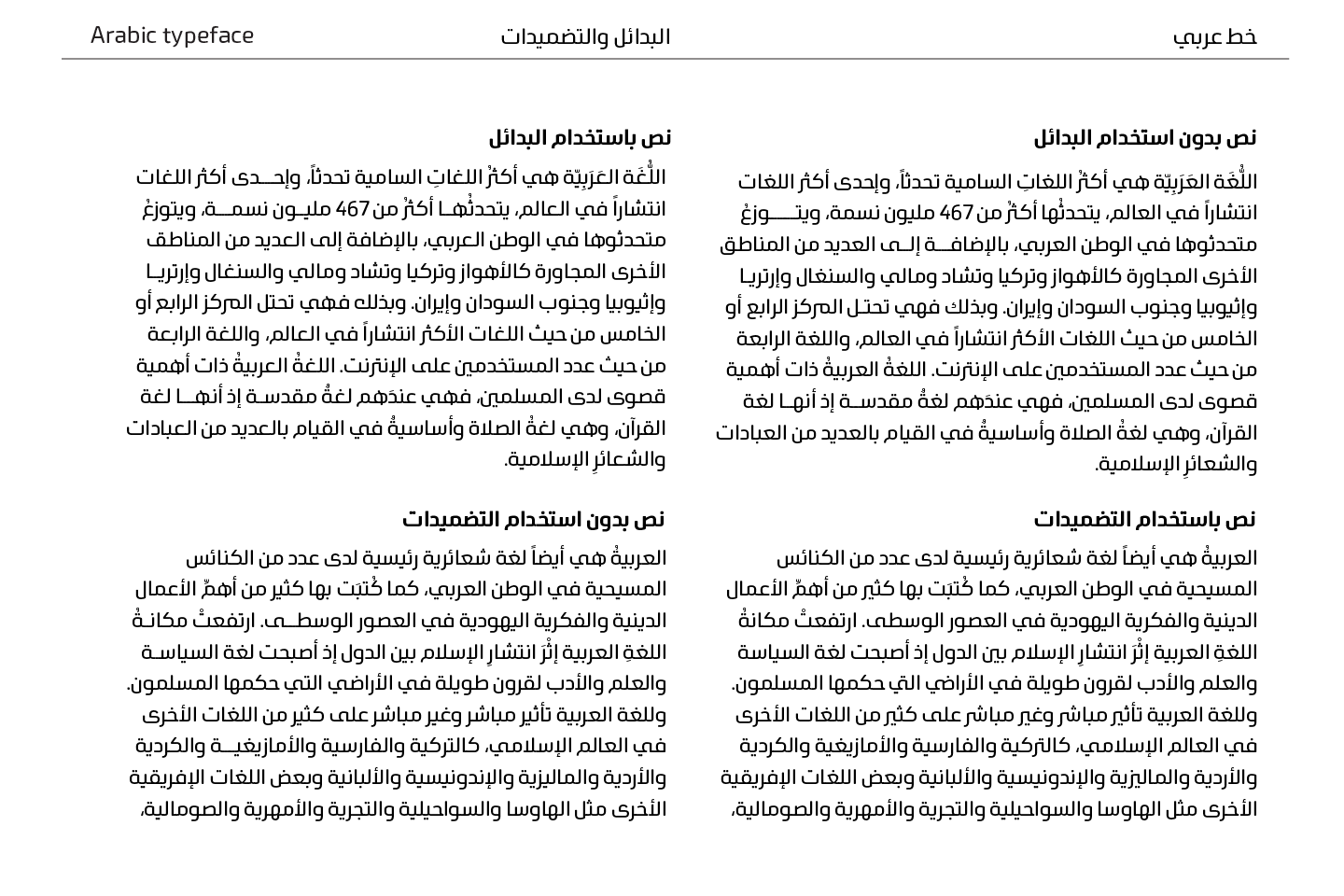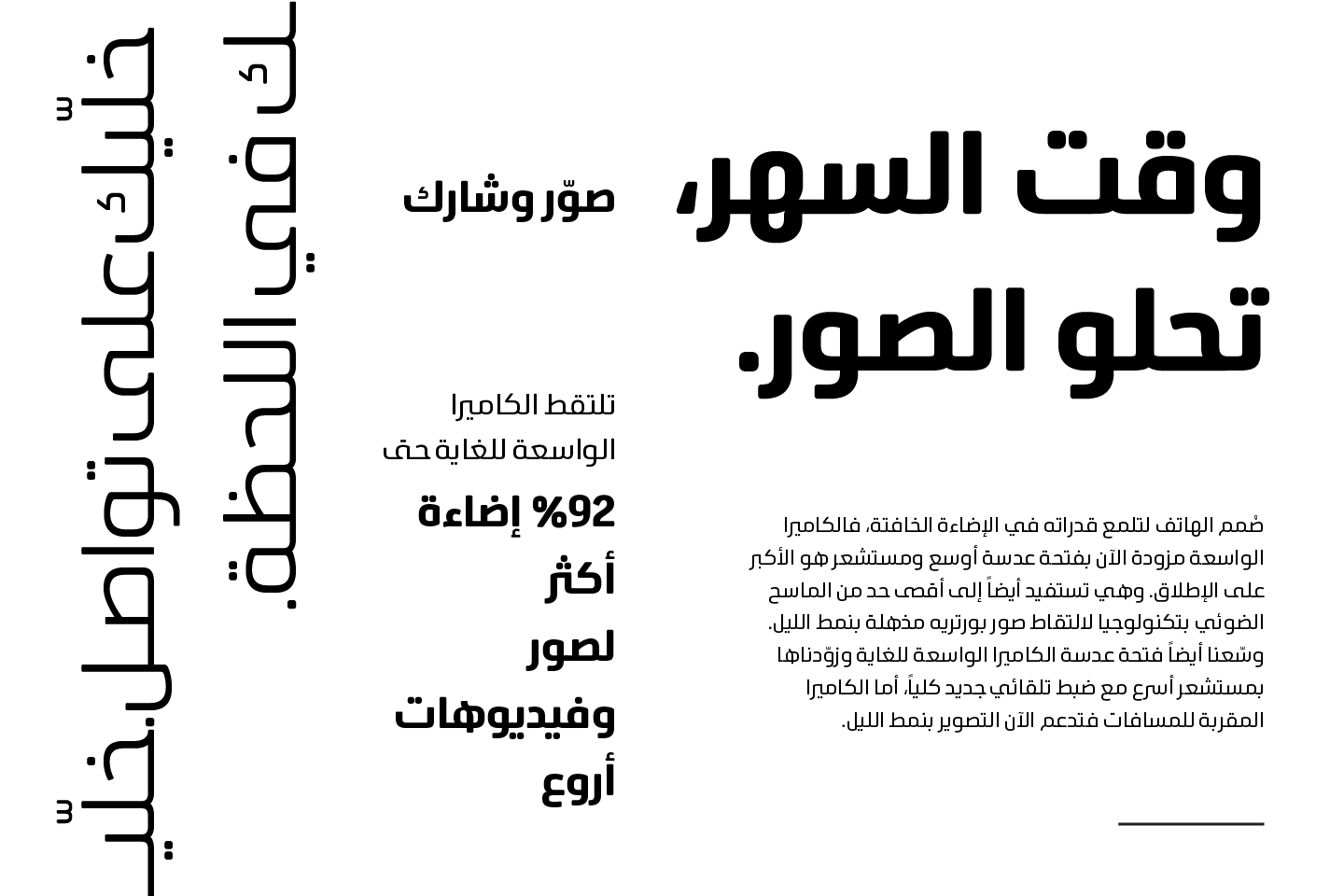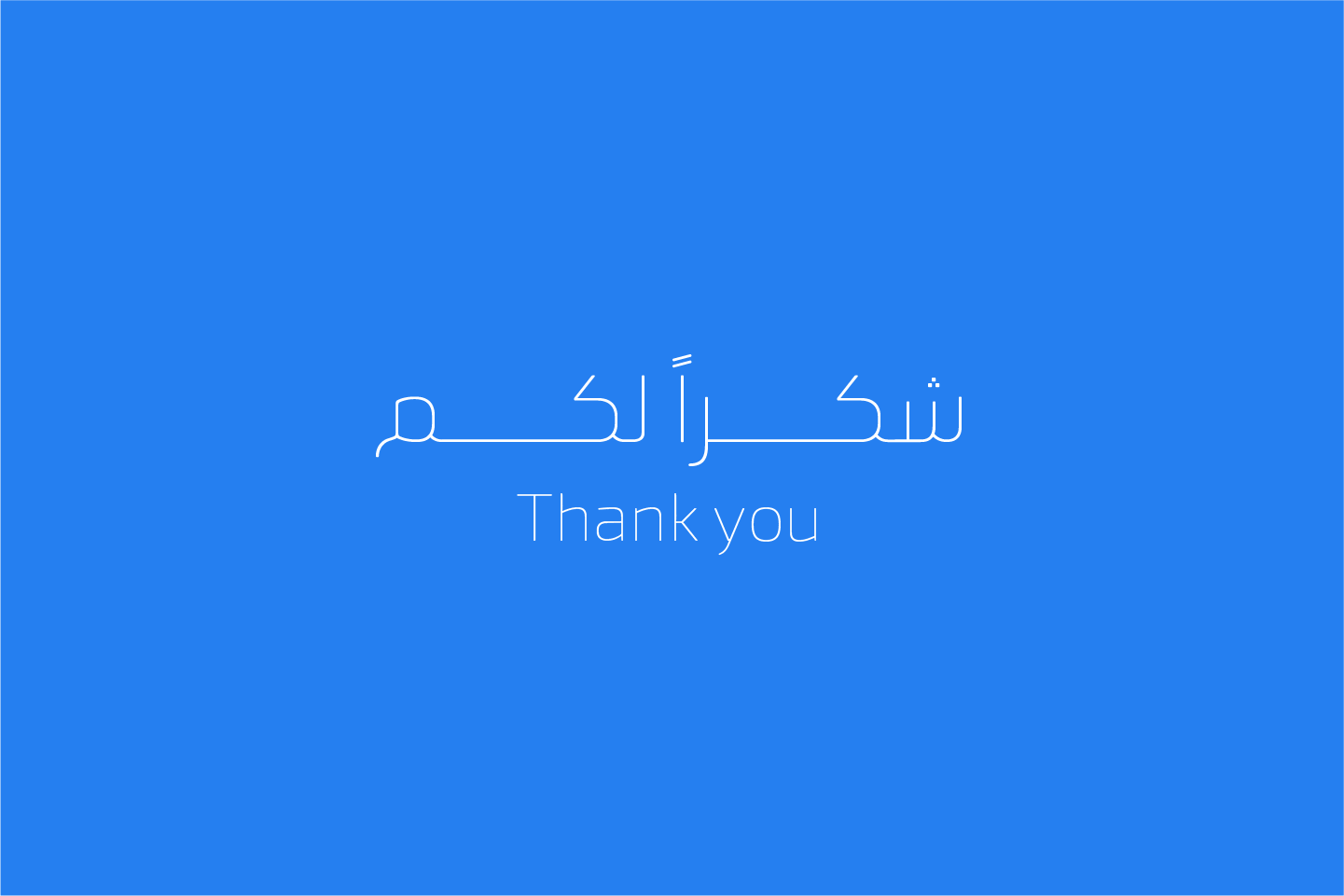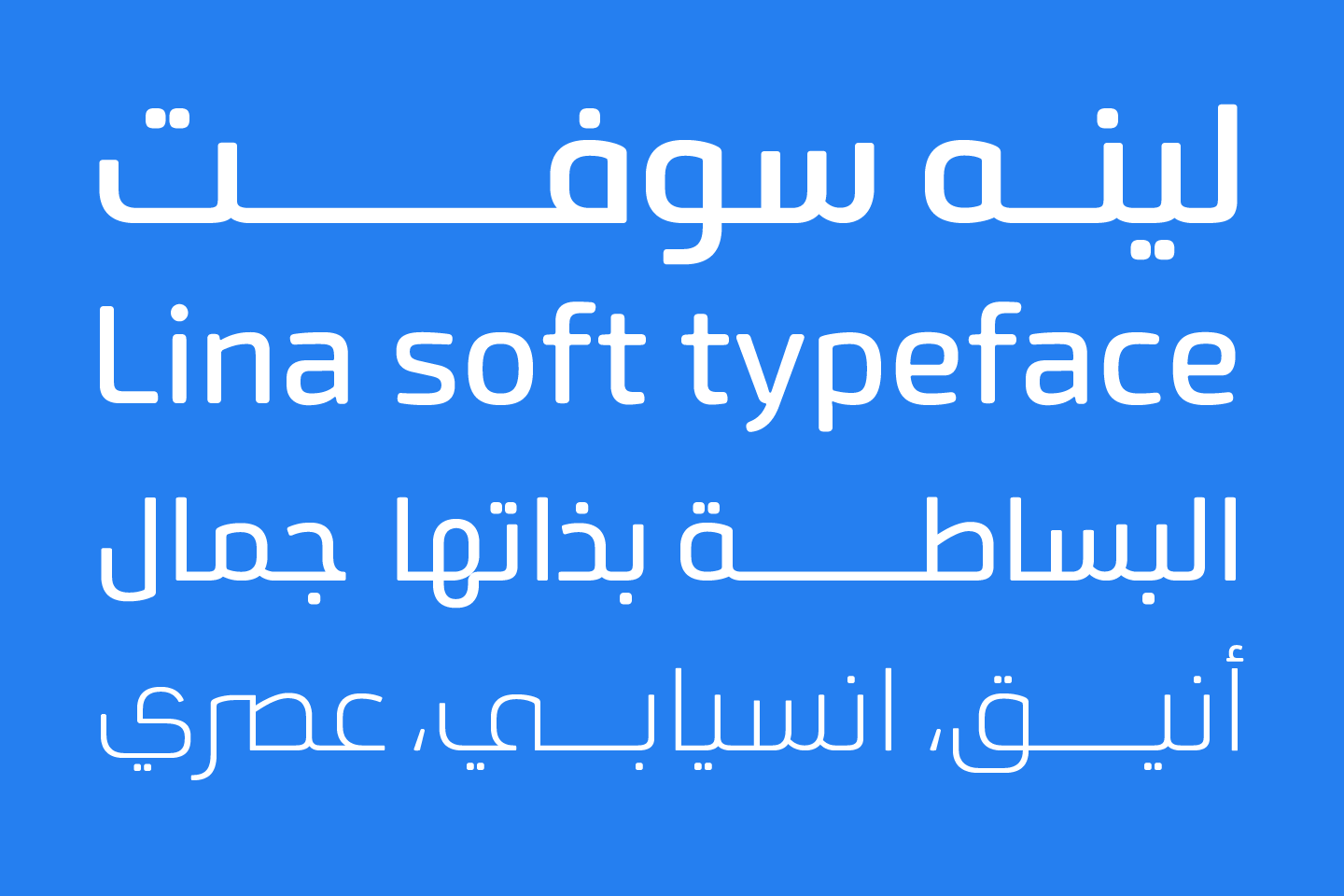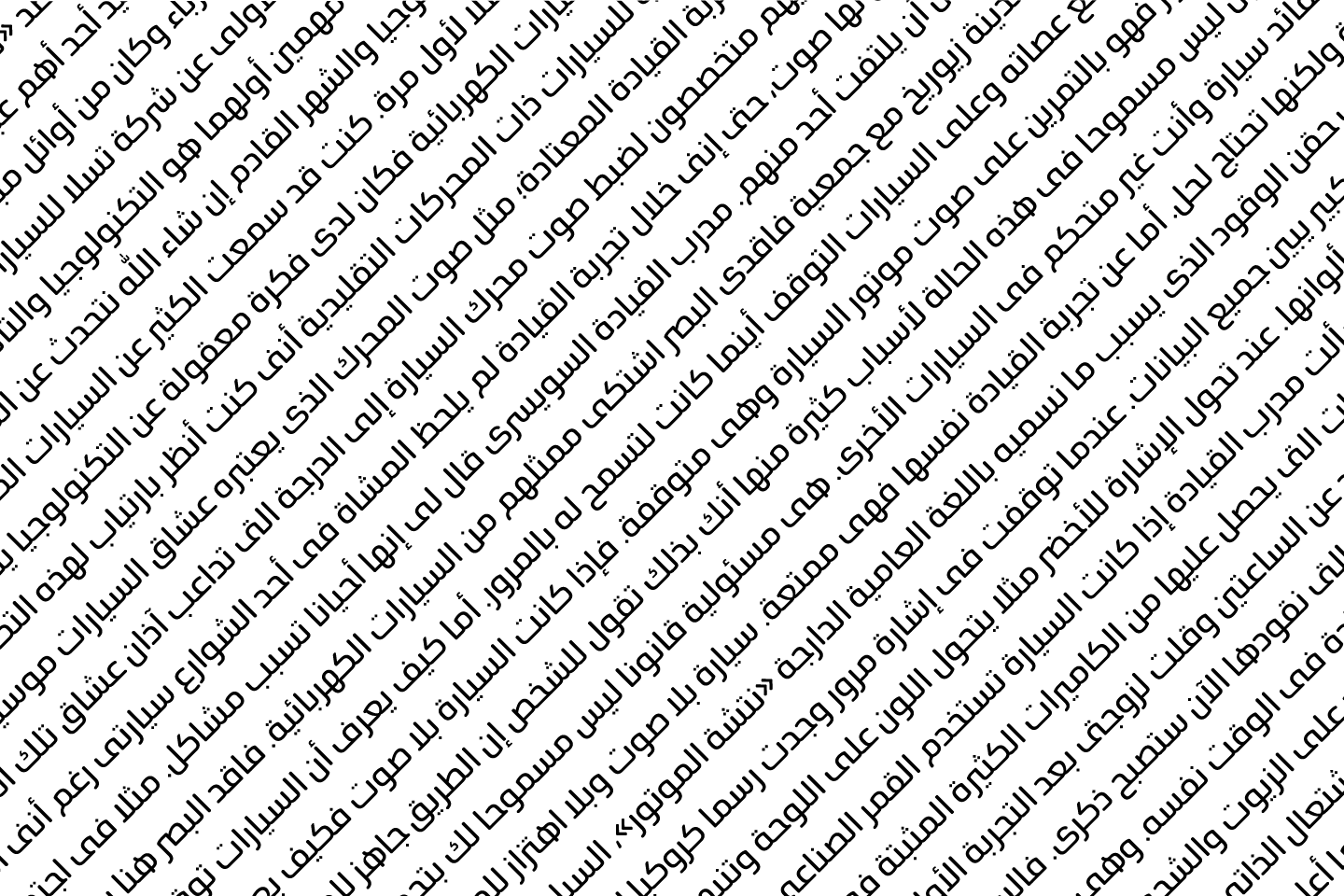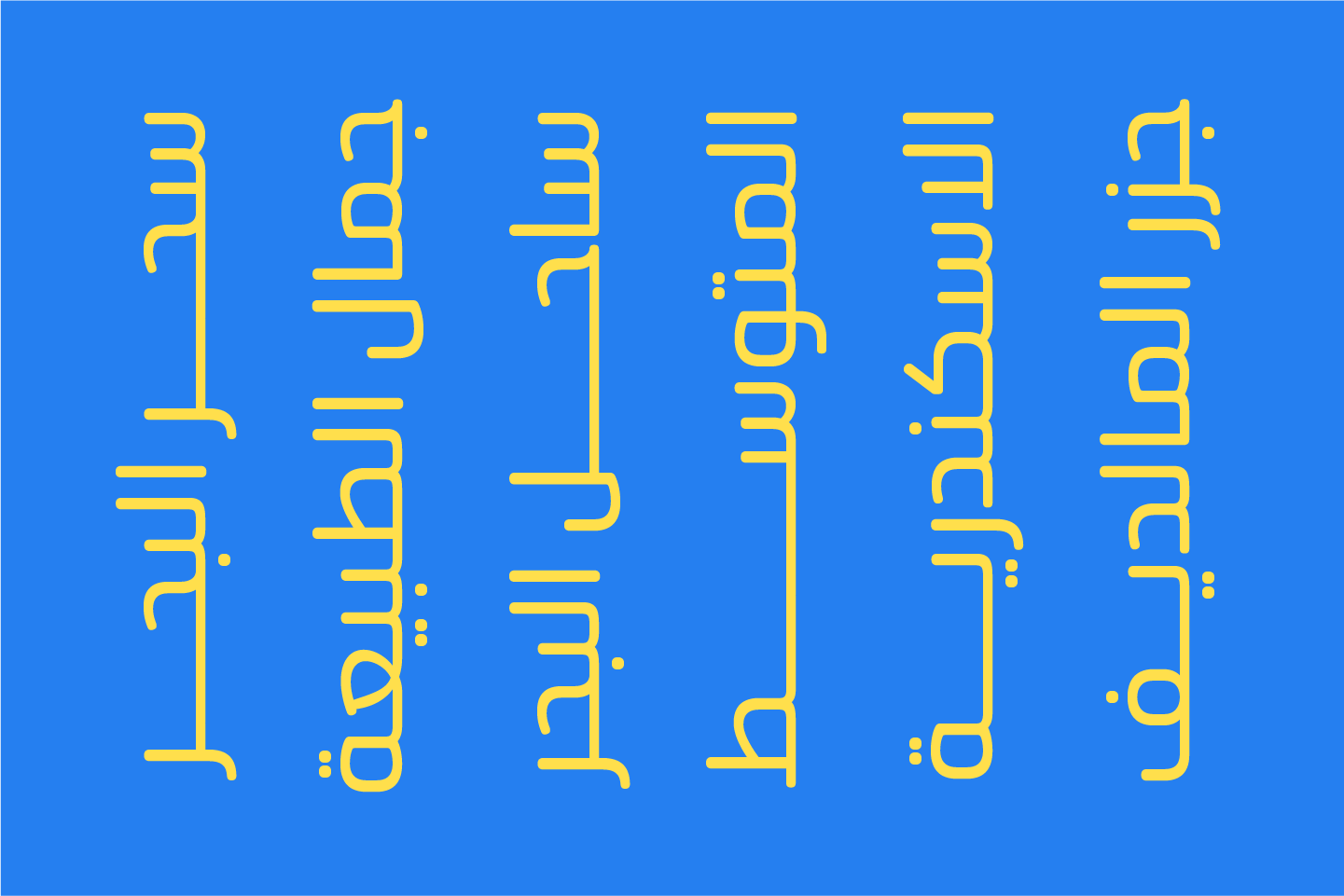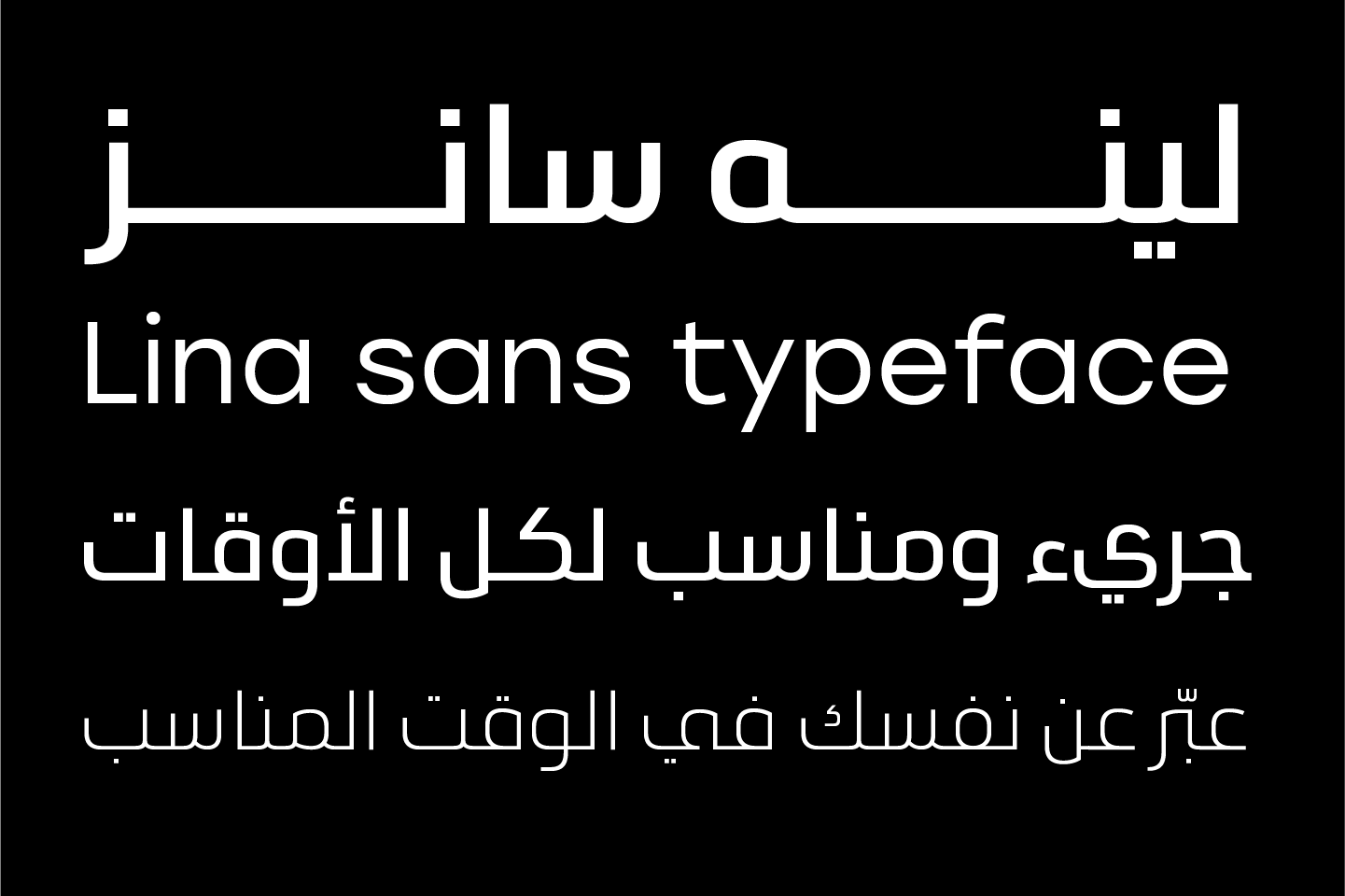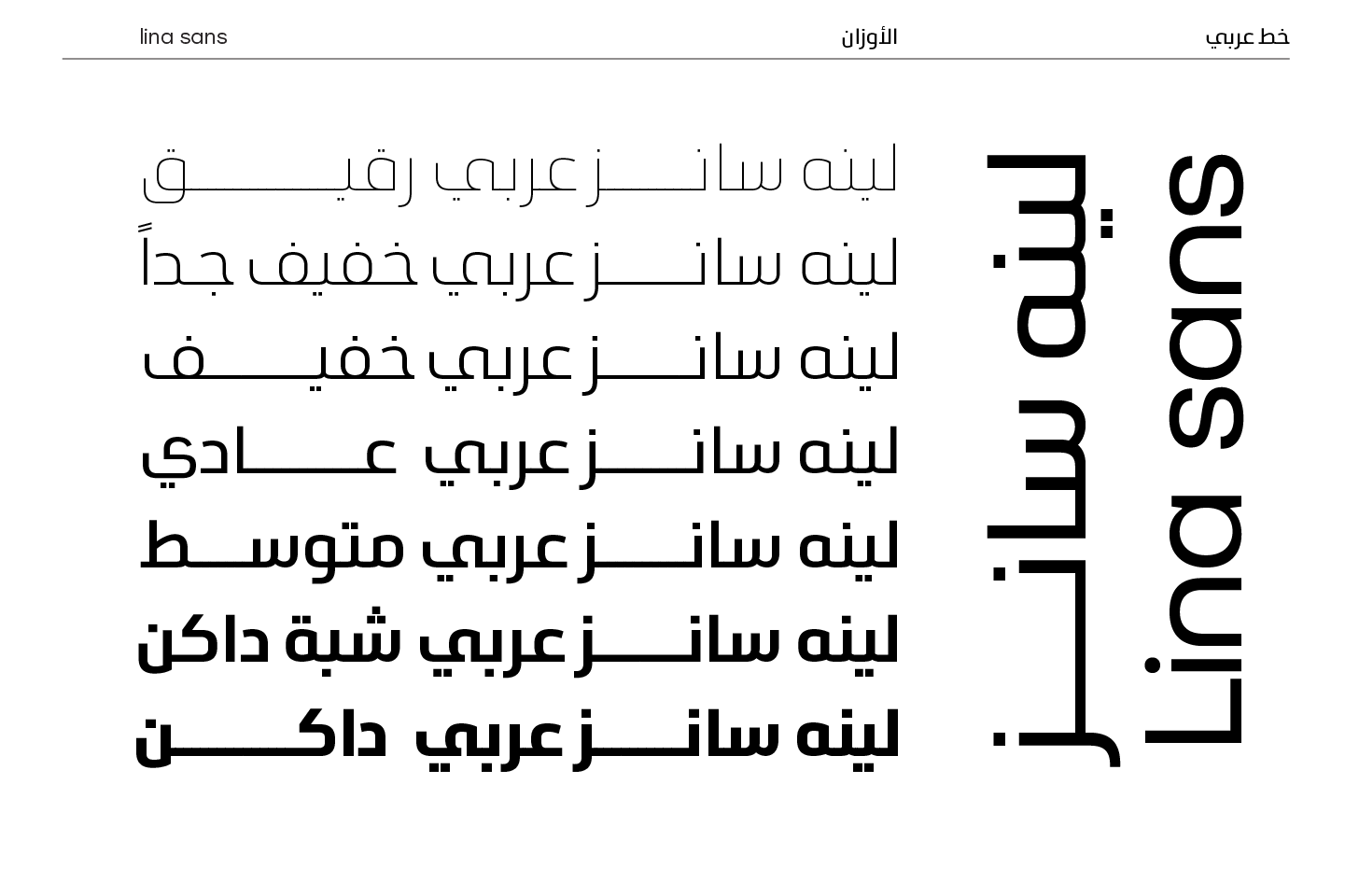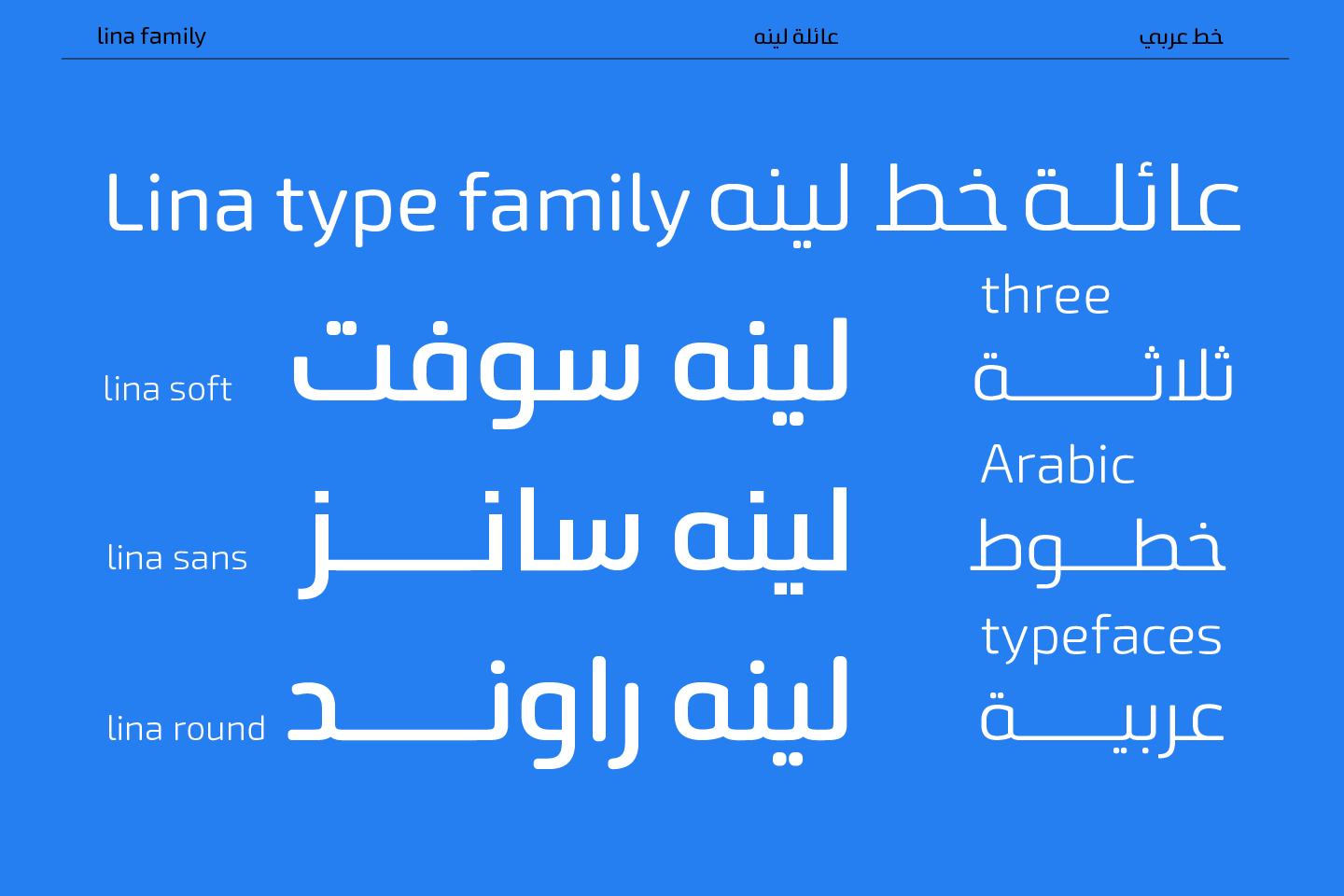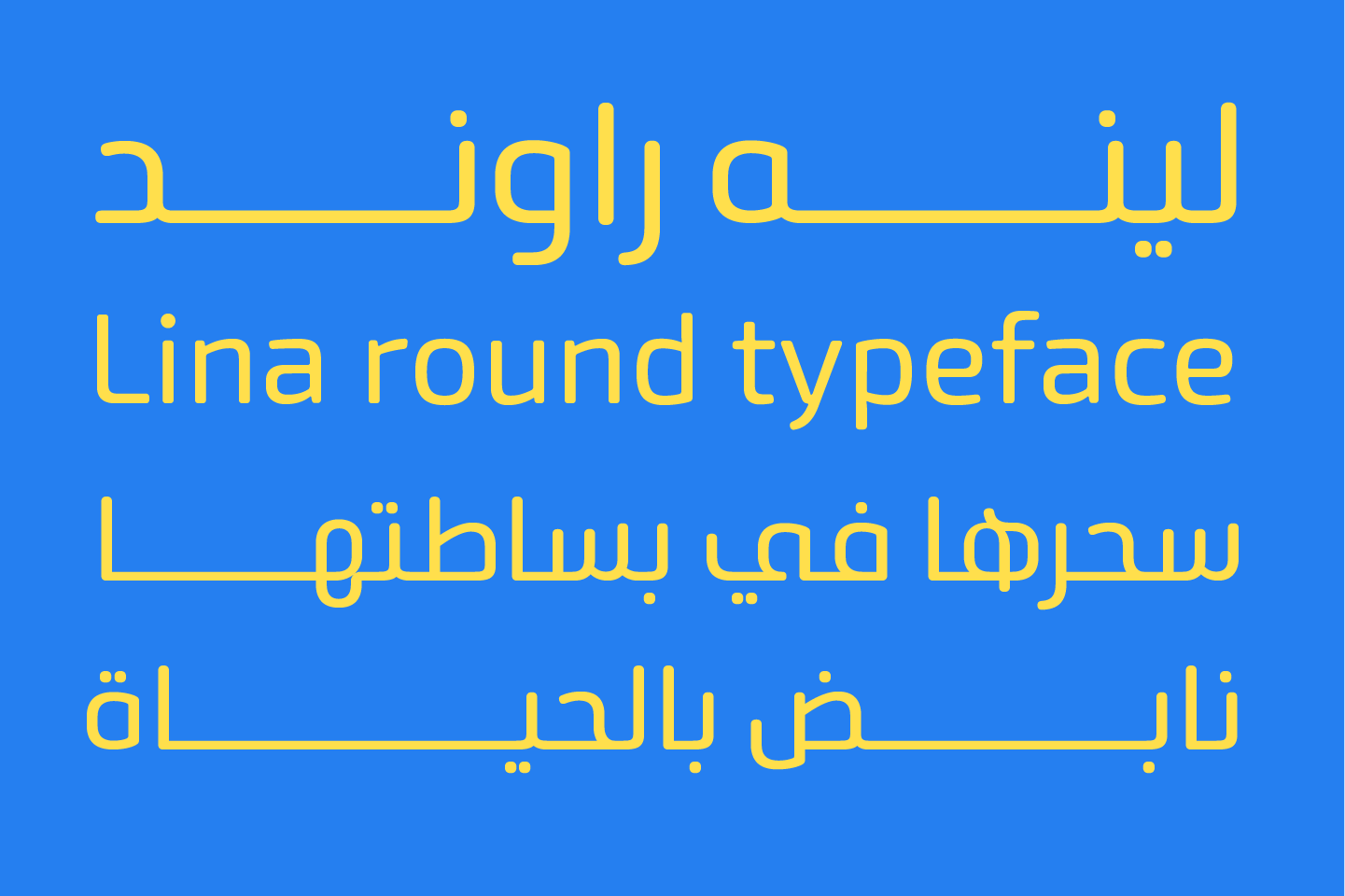
Lina type family consists of Lina soft, Lina sans, Lina round.
Lina Soft has a warm and humane feeling. It's legible, soft, clear, flexible, simple, and contemporary. With a handful set of OpenType features and alternatives.
Lina round has an expressive character with its round and friendly shapes. It's Round, legible, Clear, Flexible, Simple, Modern. With a handful set of Open Type features and alternatives.
Lina sans expresses modern vigor based on simplicity and clarity. It's Strong, Bold, legible, clear, simple, Modern. With a handful set of OpenType features and alternatives.
The design is inspired by the Kufic calligraphic style and influenced by the Naskh style.
Lina was highly crafted in order to perform well both on screen and in print. The large x-height and open counters make it function well even on small font sizes. It has a wide range of use possibilities headlines, logotypes, branding, books, magazines, motion graphics, and use on the web and Tv.
Lina Soft consists of 7-weight versions from thin to bold.